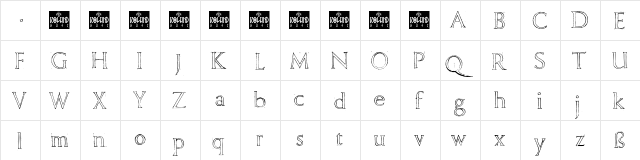
Freehand Roman Regular
Design Context for Freehand Roman Typeface
Freehand Roman flows with the natural rhythm of handwritten lettering, making it ideal for designs that call for warmth and personal expression.
Font Pairing: Combine Freehand Roman with a simple geometric sans for maximum contrast — the tension between flowing curves and clean structure is a classic typographic pairing.
Pro Tip: Use Freehand Roman for short runs of text — names, titles, or taglines. Extended body copy in script faces tires the eye quickly.